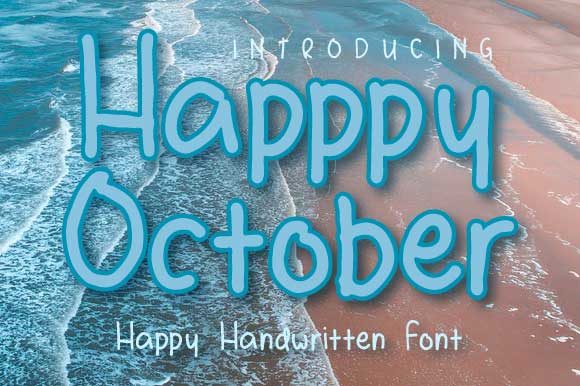
Happy October Font: Elevate Your Designs with a Bold and Casual Handwritten Style
As the seasons change and October arrives, designers and crafters are on the lookout for fresh and exciting fonts to elevate their projects. If you’re searching for a font that embodies the spirit of fall, look no further than the Happy October Font. This bold and casual handwritten font is sure to capture your heart with its incredibly distinct and timeless style.
What is Happy October Font?
Happy October Font is a unique and charming typeface that is perfect for designers and crafters seeking to add a personal touch to their work. Its bold and casual handwritten style makes it an excellent choice for a wide range of projects, from fall-themed designs to everyday creative endeavors.
Key Features of Happy October Font
- Distinct and Timeless Style: Happy October Font boasts an incredibly distinct and timeless style that sets it apart from other fonts. Its bold and casual handwritten aesthetic is sure to make your designs stand out.
- Handwritten with Love: This font is carefully crafted with love and attention to detail, giving it a personal and authentic feel.
- Perfect for Fall Designs: With its warm and cozy vibe, Happy October Font is the perfect choice for fall-themed designs, from Thanksgiving cards to autumn-inspired branding.
- Versatile and Easy to Use: This font is incredibly versatile and easy to use, making it suitable for a wide range of projects, from digital designs to print materials.
Why Choose Happy October Font?
With so many fonts available, why choose Happy October Font? Here are just a few reasons why designers and crafters love this font:
- Unique and Eye-Catching: Happy October Font is a one-of-a-kind typeface that is sure to grab attention and leave a lasting impression.
- Easy to Read: Despite its bold and playful style, Happy October Font is surprisingly easy to read, making it perfect for body text and headlines.
- High-Quality Design: This font is designed with high-quality and precision, ensuring that it looks great in any size or resolution.
How to Use Happy October Font
- Fall-Themed Designs: Use Happy October Font to create stunning fall-themed designs, from Thanksgiving cards to autumn-inspired branding.
- Handmade Crafts: Add a personal touch to your handmade crafts, such as knitting patterns, sewing projects, or DIY tutorials.
- Digital Designs: Use Happy October Font in your digital designs, from social media graphics to blog posts and website headers.
Tips and Tricks for Working with Happy October Font
Here are a few tips and tricks to help you get the most out of Happy October Font:
- Experiment with Colors: Happy October Font looks great in a range of colors, from warm autumn tones to bright and bold hues.
- Mix and Match Fonts: Try pairing Happy October Font with other fonts to create a unique and eye-catching combination.
- Use it for Headlines and Body Text: Happy October Font is versatile enough to use for both headlines and body text, making it perfect for a wide range of projects.
In conclusion, Happy October Font is a bold and casual handwritten font that is sure to elevate your designs and capture your heart. With its incredibly distinct and timeless style, this font is perfect for designers and crafters seeking to add a personal touch to their work. Whether you’re creating fall-themed designs, handmade crafts, or digital designs, Happy October Font is the perfect choice. So why wait? Fall in love with Happy October Font and start creating spectacular designs today!